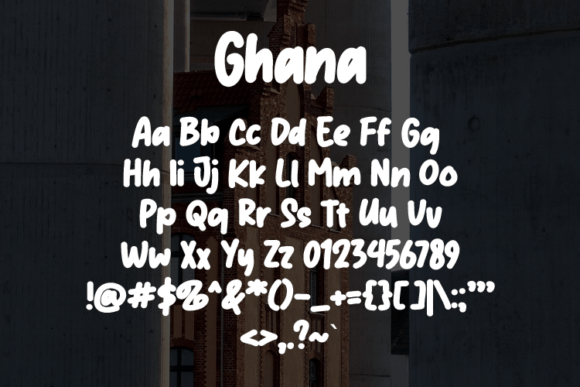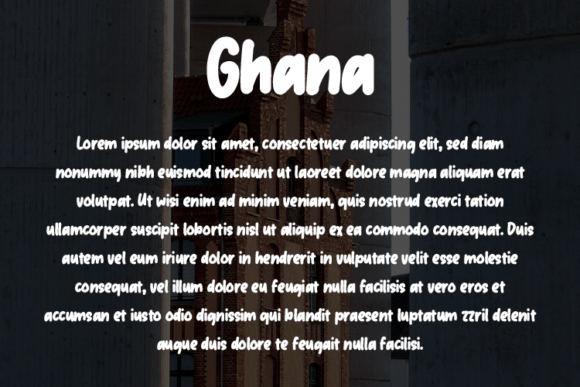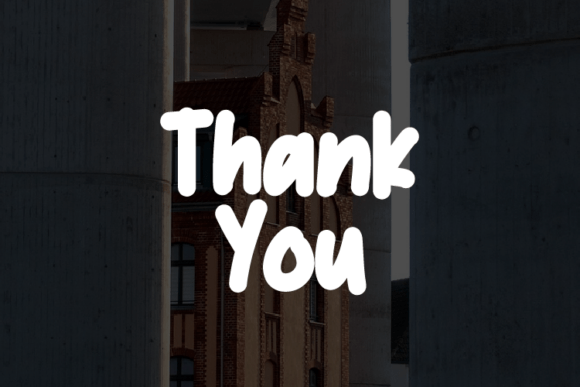
Unleashing the Power of Authentic Visual Storytelling
Imagine you’re wandering through a bustling city, surrounded by the sounds and smells of a vibrant metropolis. You stumble upon an old, reclaimed wooden sign that catches your eye, its hand-brushed letters telling a story of resilience and heritage. This moment of connection sparks an idea for a branding project that needs to convey a sense of stability and raw architectural beauty.
Enter the Ghana Font, a typeface that perfectly captures the intersection of industrial grit and organic warmth. Designed for creators who want to convey a message of substance and authenticity, this font is a valuable asset for any designer looking to elevate their visual storytelling. With its heavy, hand-brushed strokes and rounded terminals, Ghana Font provides a bold, unmistakable voice that resonates with confidence and character.
Ghana Font Key Features
- Character Set: The font includes a wide range of characters, including Latin, Extended Latin, and Diacritics, making it suitable for various languages.
- Unique Characteristics: Ghana Font features a unique blend of traditional and modern design elements, with a focus on legibility and readability in African languages.
Ghana Font Review
I recently had the chance to work with the Ghana Font, and I must say, it’s a font that’s full of life and vibrancy. ✨ Here are a few things that stood out to me:
- The Ghana Font has a unique and authentic feel to it. It’s clear that the designers were inspired by traditional Ghanaian motifs and patterns.
- The font is highly legible, even at smaller sizes, making it a great choice for body text.
- The Ghana Font is highly customizable, with a wide range of weights and styles to choose from.
However, there are a few limitations to keep in mind: ⚠️
- The font may be a bit too playful for more formal or professional designs. It’s best suited for projects that require a fun and energetic vibe.
- The Ghana Font may not be the best choice for projects that require a lot of text. The font’s unique style can start to feel overwhelming when used extensively.
Overall, I’m really impressed with the Ghana Font. It’s a unique and fun font that’s perfect for projects that need a little extra personality. If you’re looking for a font that will add some excitement to your designs, the Ghana Font is definitely worth considering.
Ghana Font is ideal for cultural or linguistic designs, particularly in Ghanaian contexts. Use it for:
– Traditional clothing designs
– Cultural events posters
– Educational materials
– Personalized gifts and invitations